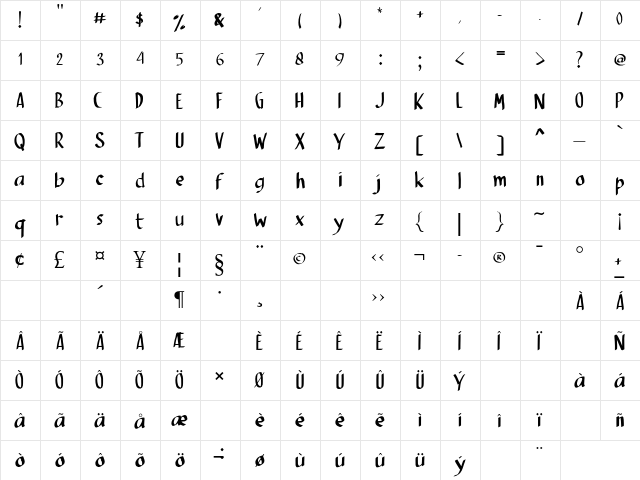
Mr-White Regular
| Designer | Daniel Sahat Mangisi Tampubolon |
Design Context for Mr-White Typeface
Mr-White is a composed and adaptable typeface that performs quietly and consistently across a wide range of design contexts.